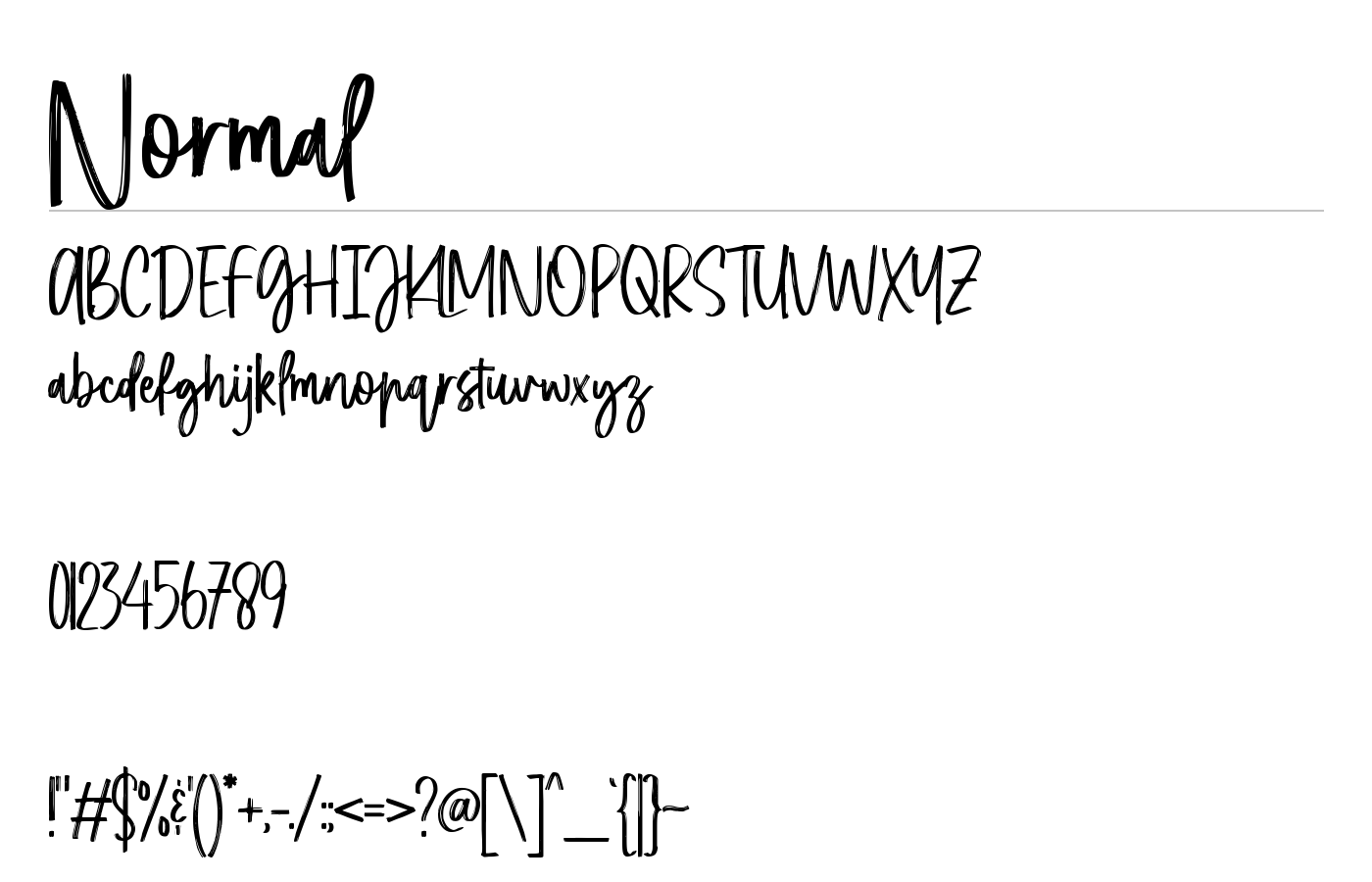
Pathway Artistry is a playful handwritten font with a casual, brush-like appearance that feels lively and personal. Its tall, narrow letterforms and uneven strokes give it an organic, artistic vibe perfect for creative projects, informal branding, or expressive headlines. This font works well where a friendly, approachable, and unique touch is desired, such as invitations, logos, and social media graphics.
Pathway Artistry Font